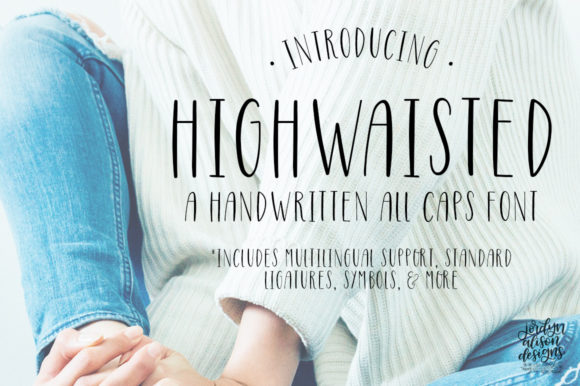
Introducing Highwaisted Font: The Epitome of Chic, Playful, and Bold Typography
Embark on a typographic journey with the Highwaisted Font, a captivating creation by jordynalisondesigns. This contemporary, all-caps sans serif font exudes a captivating charm, making it the perfect choice for adding a touch of personality and flair to your creative projects.
Immerse yourself in a world of boundless creativity with Highwaisted, a font that defies the ordinary. Its playful and bold letterforms dance across the page, commanding attention and leaving a lasting impression. Whether you're designing logos, branding materials, social media graphics, or eye-catching headlines, Highwaisted promises to elevate your designs to new heights.
With its playful and stylish vibe, Highwaisted effortlessly captures the essence of modern typography. It's the perfect font for adding a touch of fun and whimsy to your projects. Say goodbye to boring, conventional fonts and embrace the infectious energy of Highwaisted.
Step into the spotlight and make a grand entrance with Highwaisted. Its captivating presence ensures that your words will leave a lasting impression, making your projects stand out from the crowd. Whether you're a seasoned designer or just starting your creative journey, Highwaisted is your secret weapon for creating designs that resonate and captivate your audience.
Master the art of effortless elegance with Highwaisted. Its clean lines and modern aesthetic bring a touch of sophistication to your projects, allowing your message to shine through with clarity and impact. Experience the transformative power of typography as Highwaisted elevates your designs to new levels of excellence.
Unlock the gateway to endless creative possibilities with Highwaisted. Its versatility knows no bounds, making it the perfect font for a wide range of projects, from playful invitations and greeting cards to striking posters and website designs. Let your imagination soar and let Highwaisted guide you on a journey of typographic exploration.